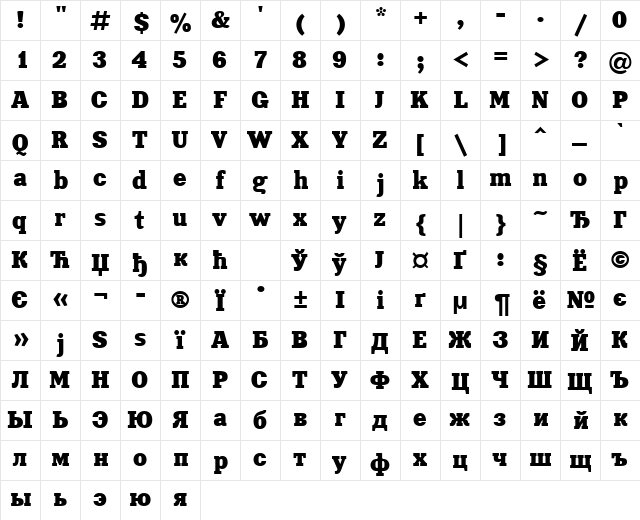
XeniaCTT Regular
Design Context for XeniaCTT Typeface
XeniaCTT offers clean, dependable letterforms without strong stylistic allegiance, making it a practical choice for designers who need flexibility.